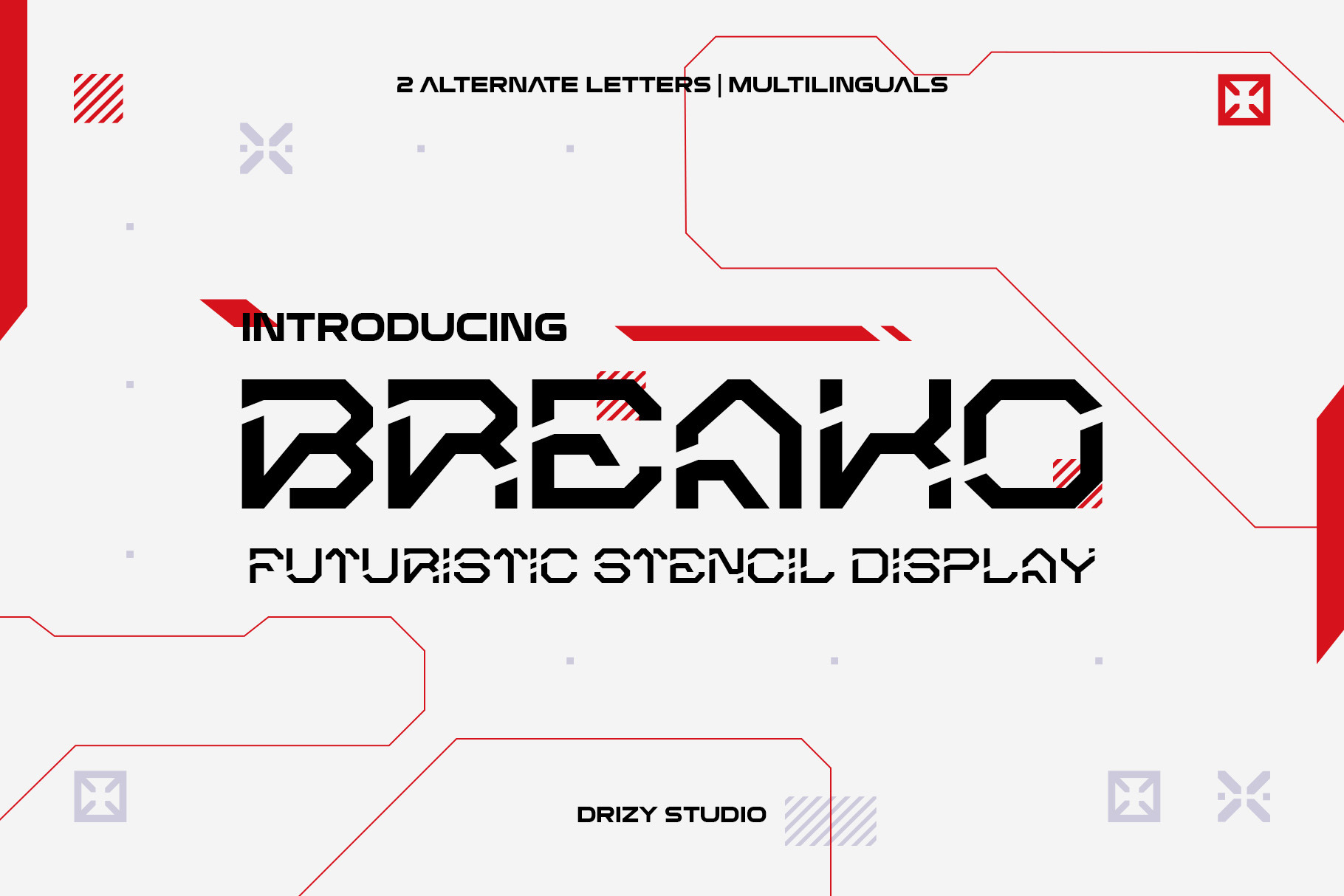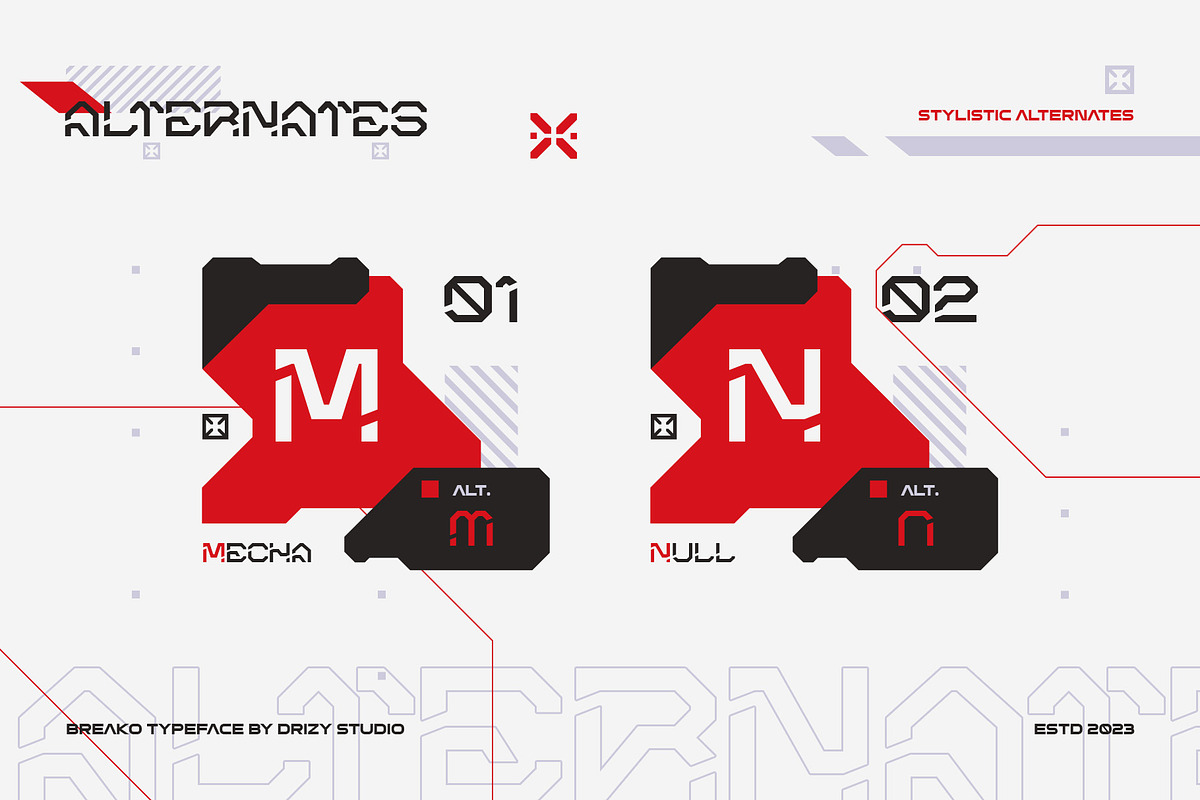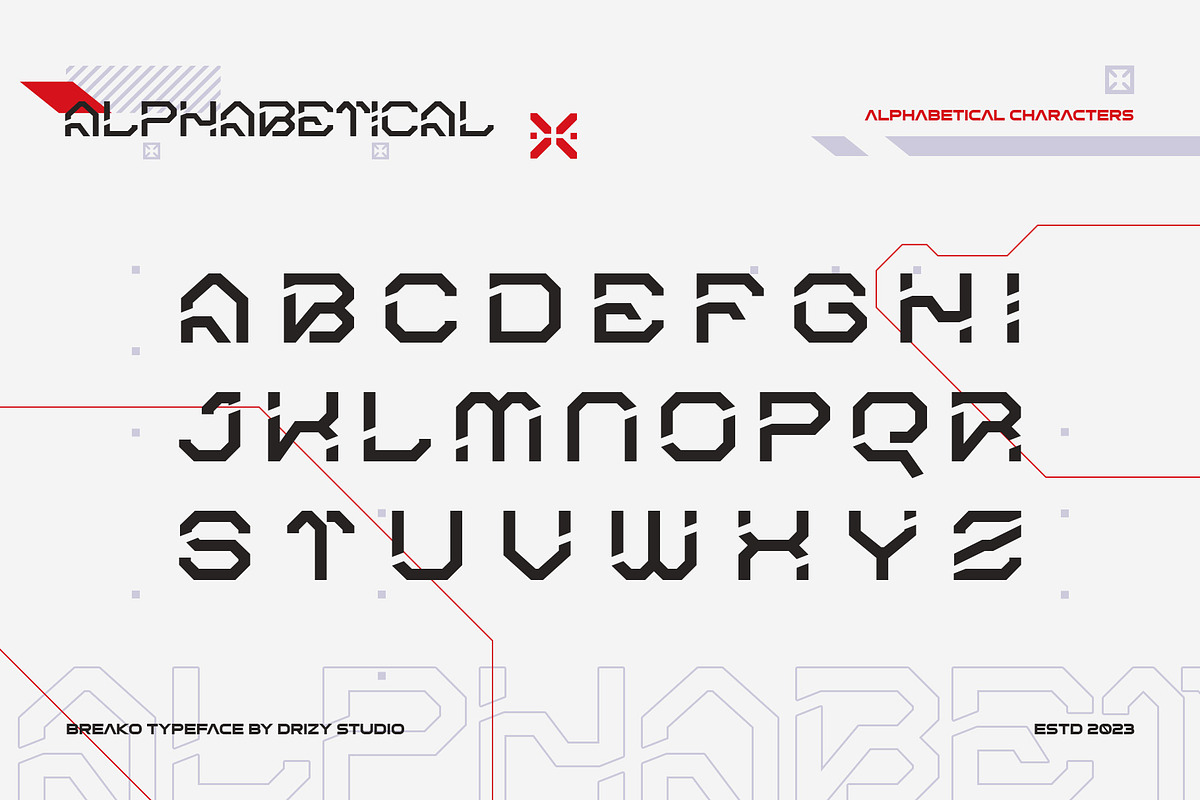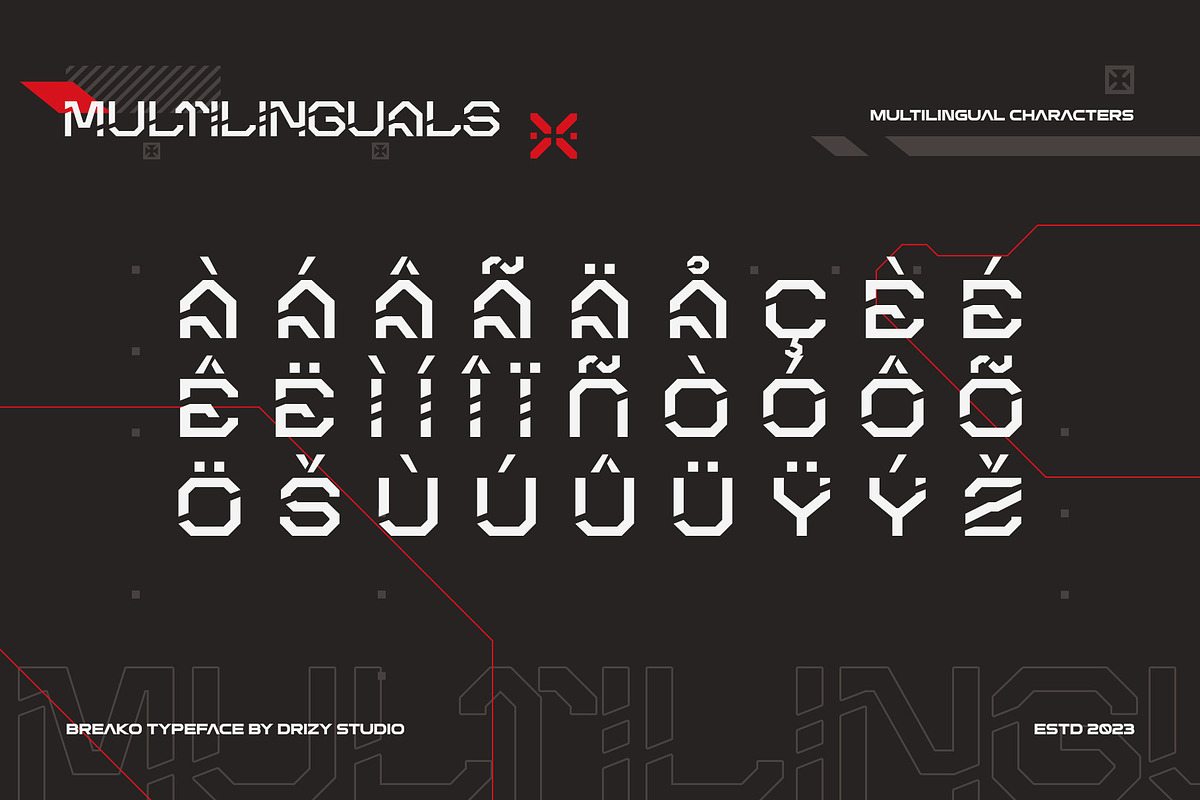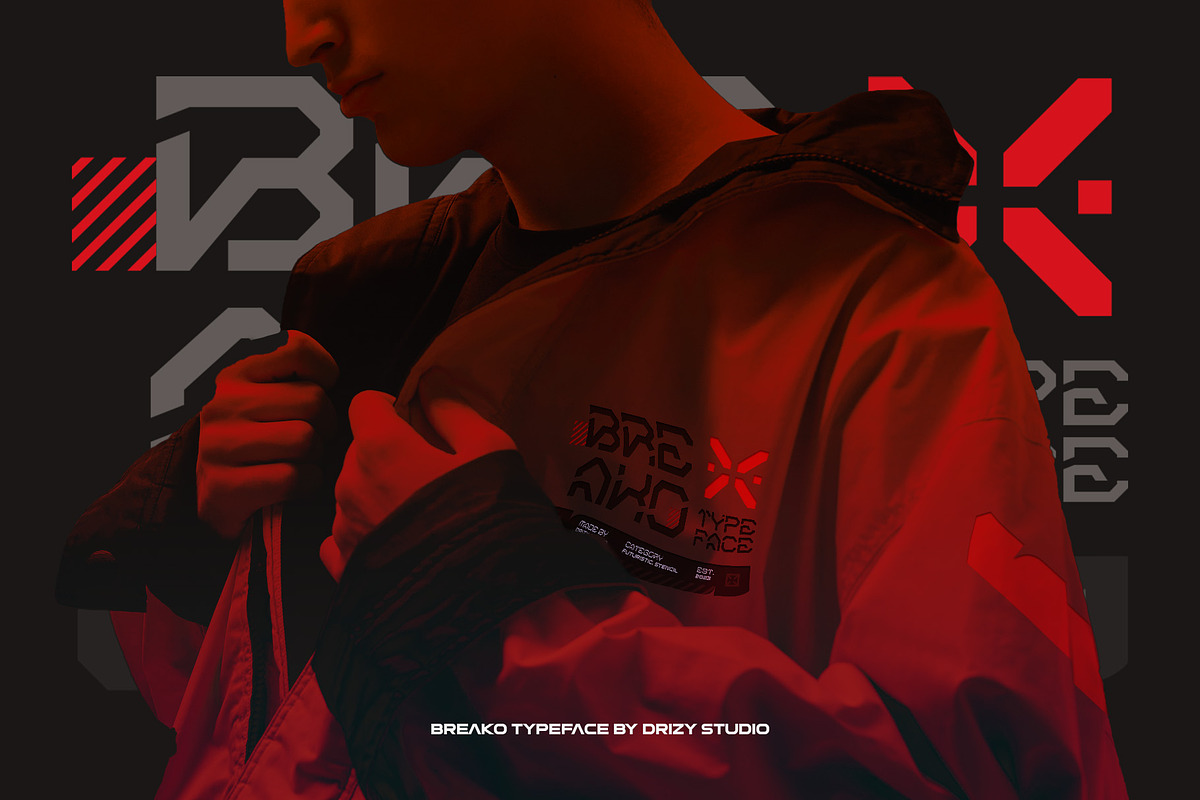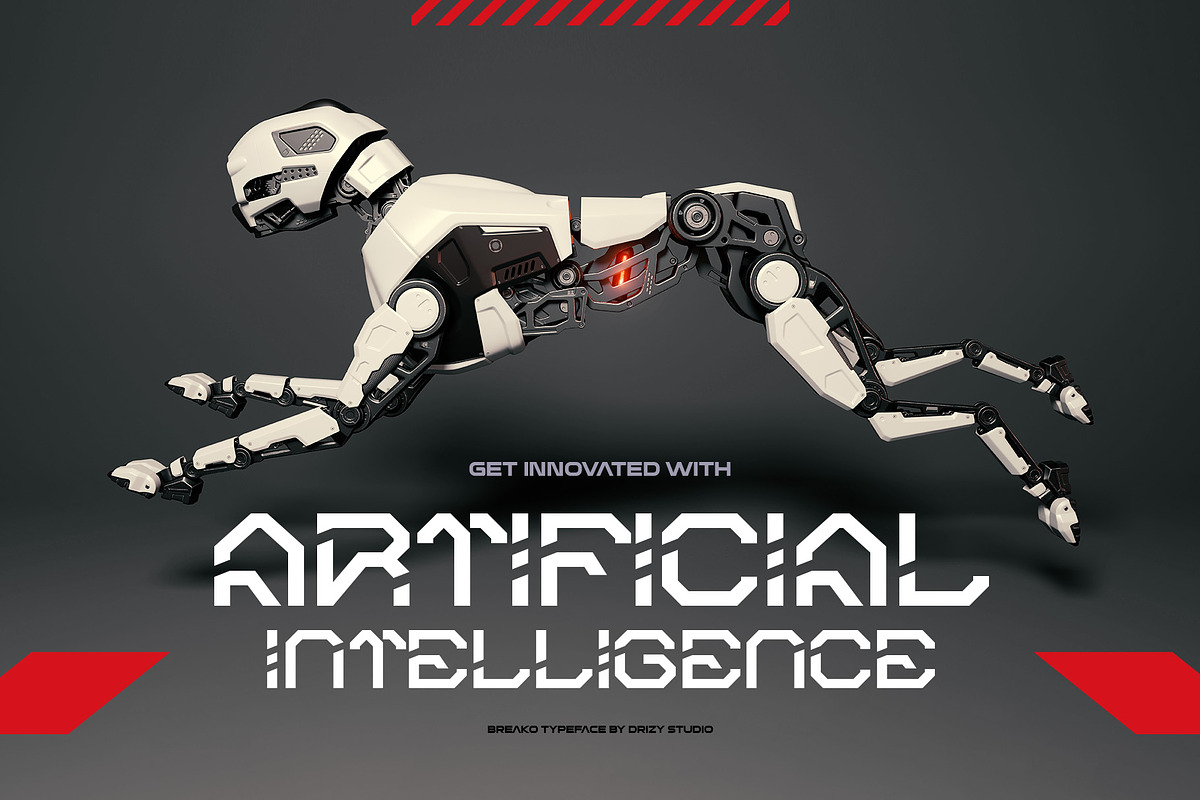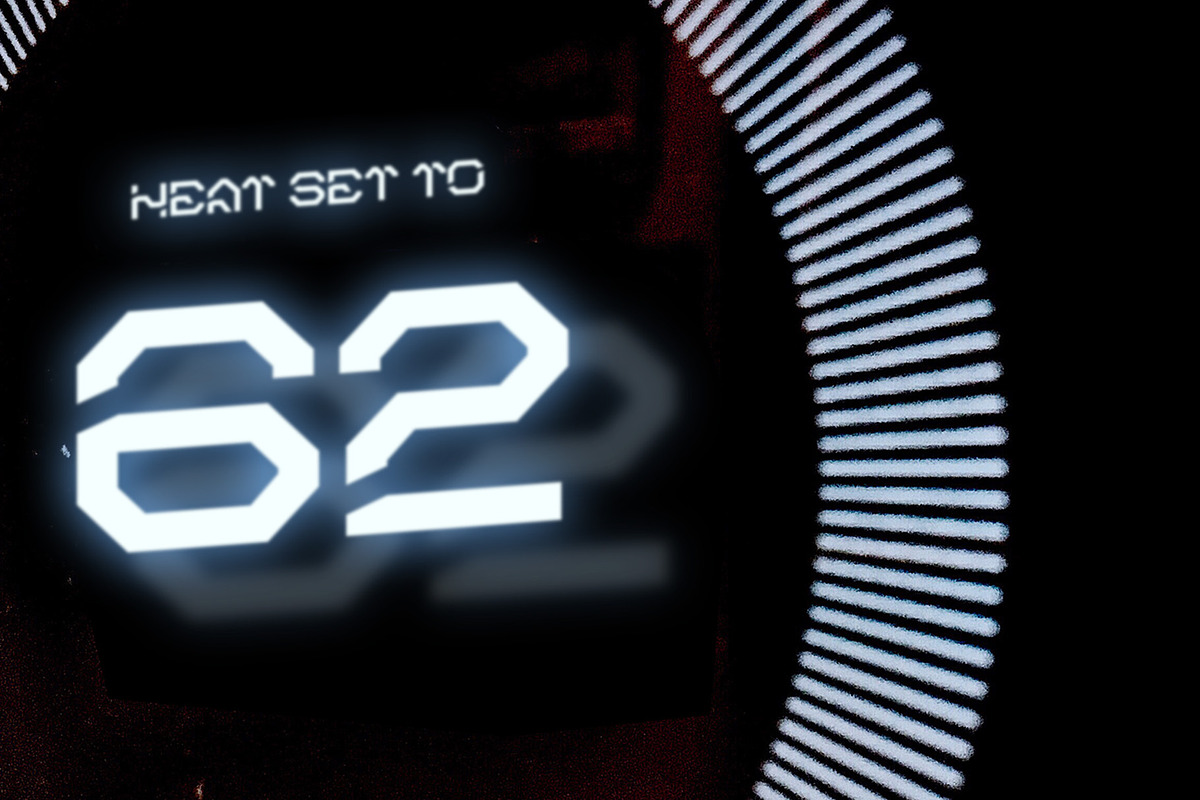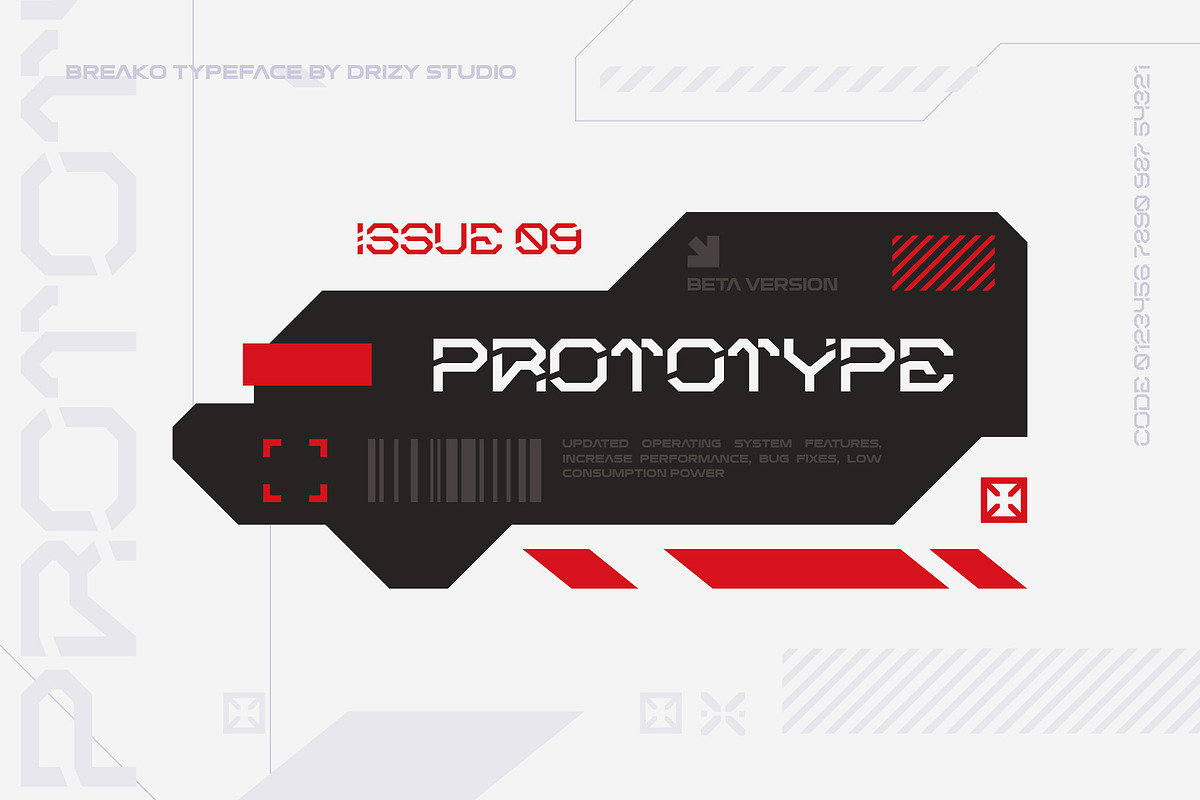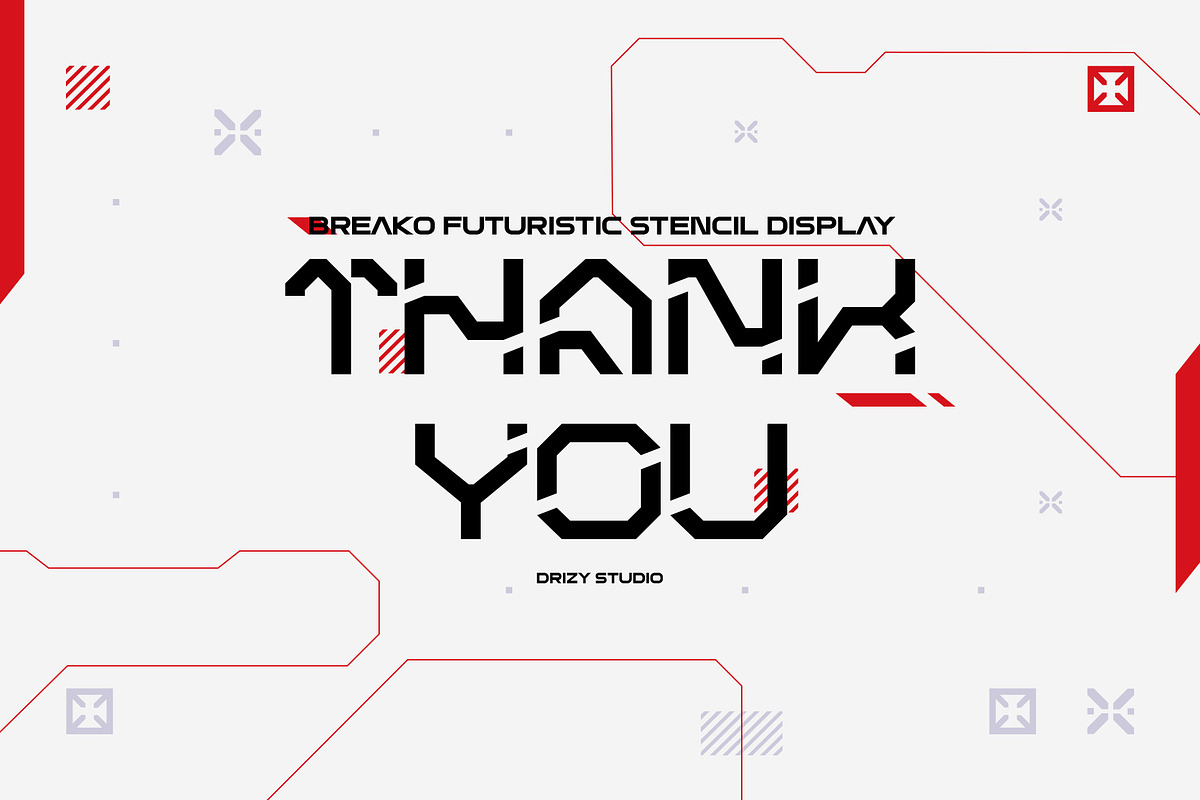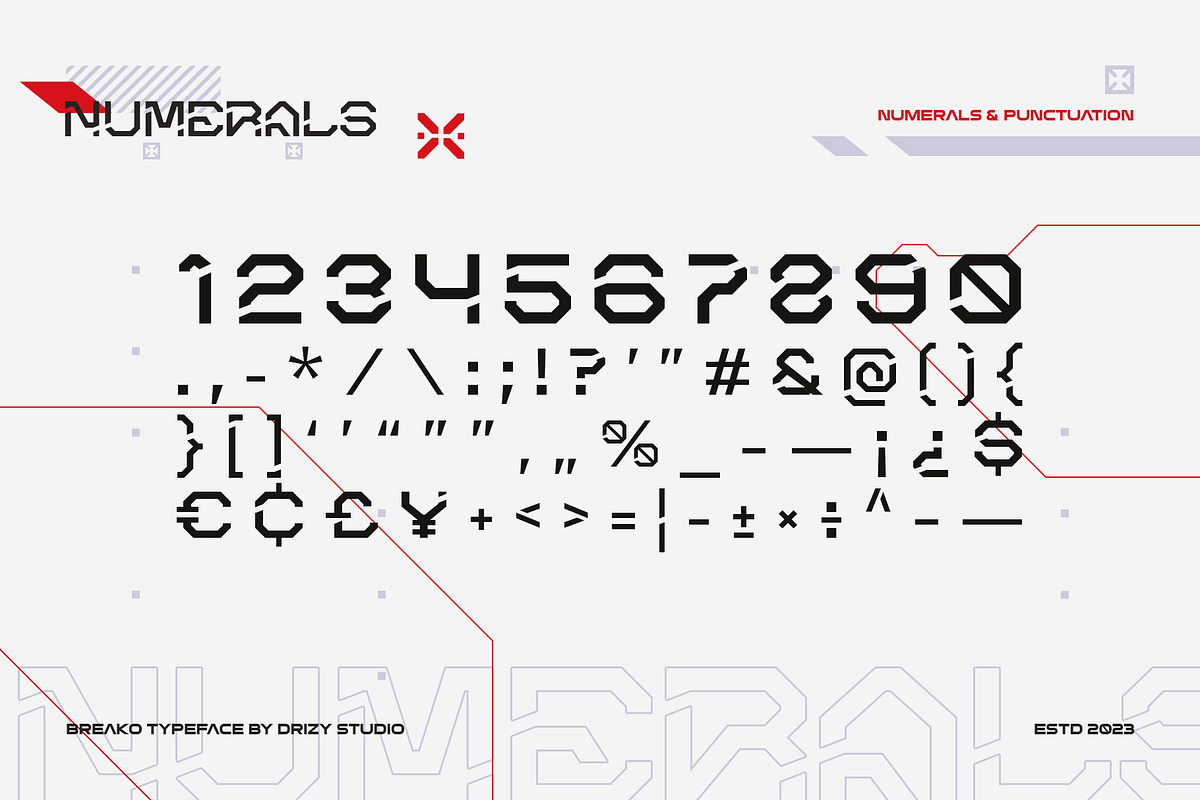
Breako - Futuristic Stencil Font
Breako - Futuristic Stencil Font is a cutting-edge typeface that effortlessly blends modern aesthetics with a touch of industrial design. This versatile font family is designed to make your projects stand out, giving them a futuristic, high-tech look that captures attention and leaves a lasting impression.
Breako features: Character Set Punctuation & Numbers Multilingual Support Alternates